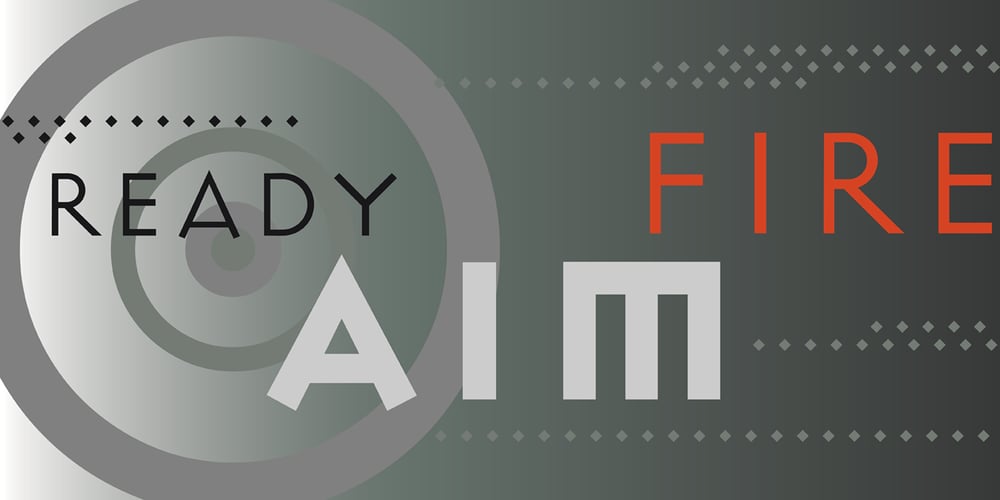
Patriot Font Family was designed by Jonathan Barnbrook and published by Barnbrook Fonts. Patriot contains 2 styles and family package options. Patriot is the sans-serif version of Exocet and, like Exocet, is based upon early Greek and Roman stone-carving, yet it adheres more closely to the shared historical source material. Patriot was developed to include unique forms and alternative characters, becoming a striking original typeface in its own right.